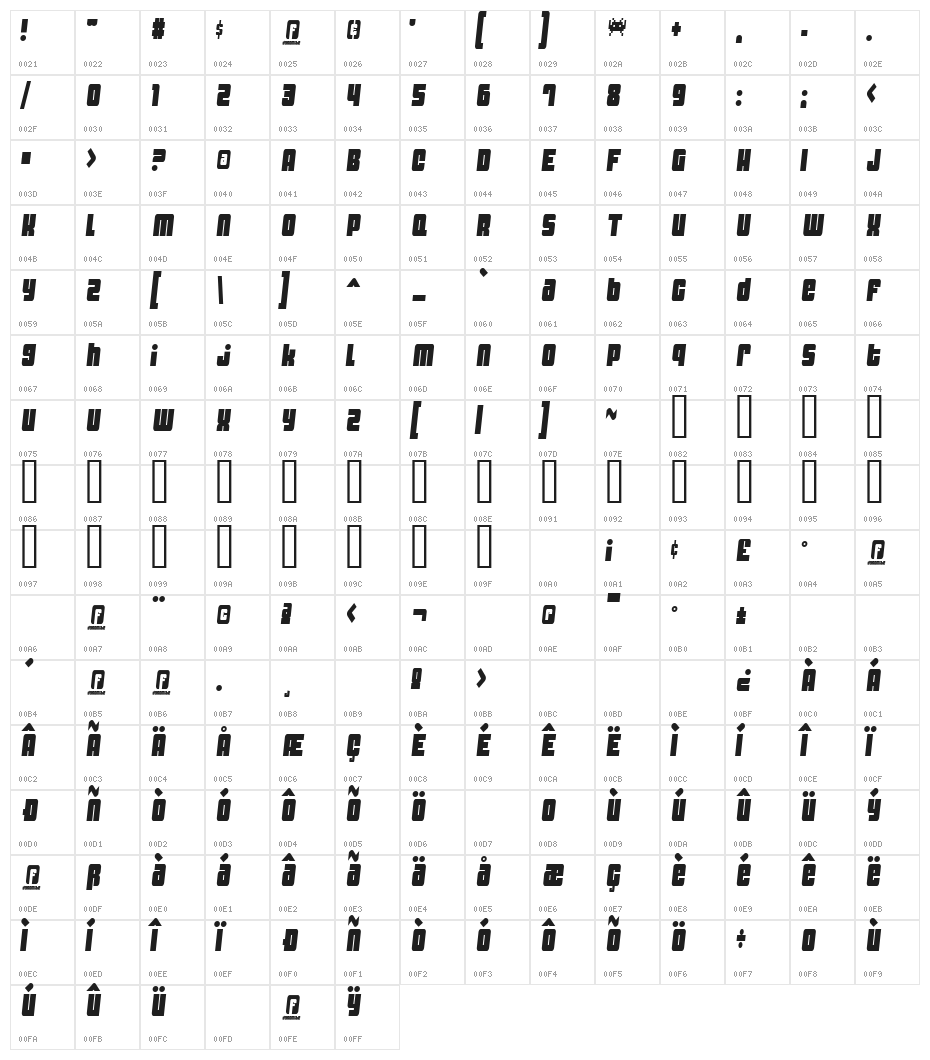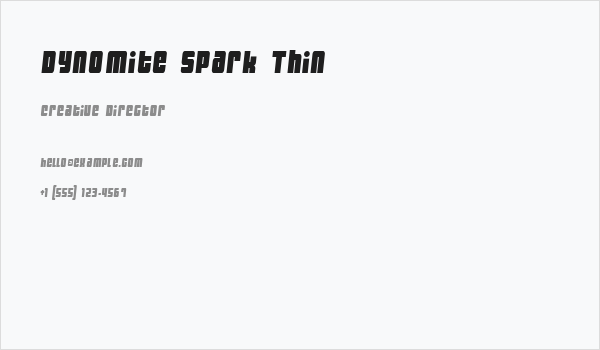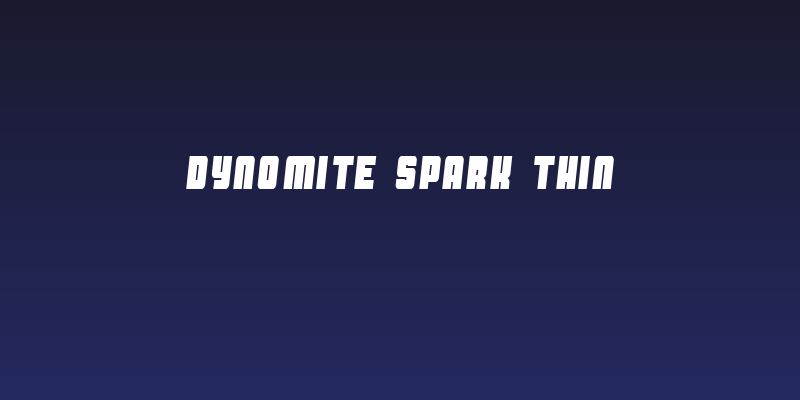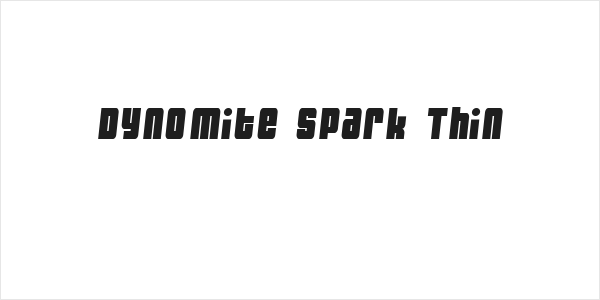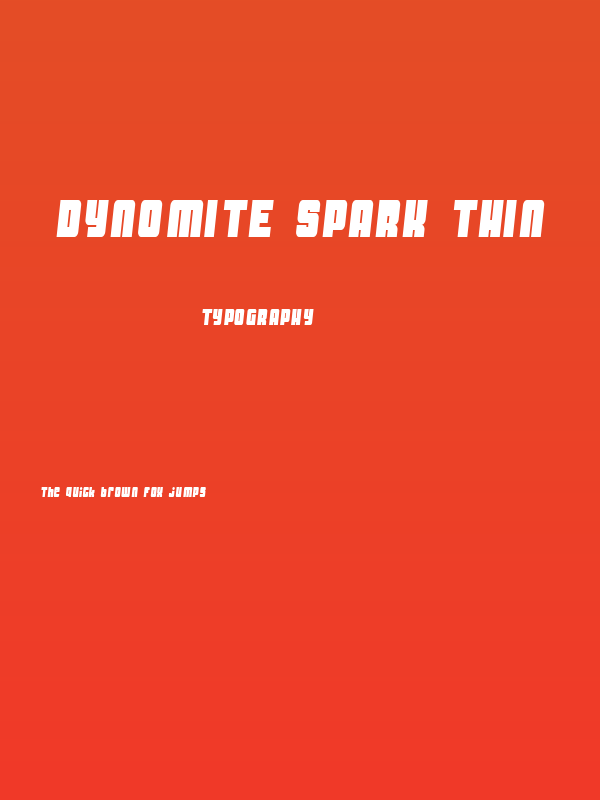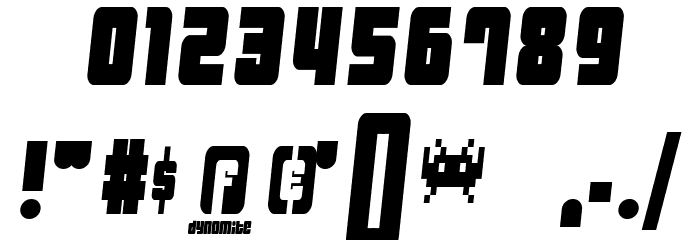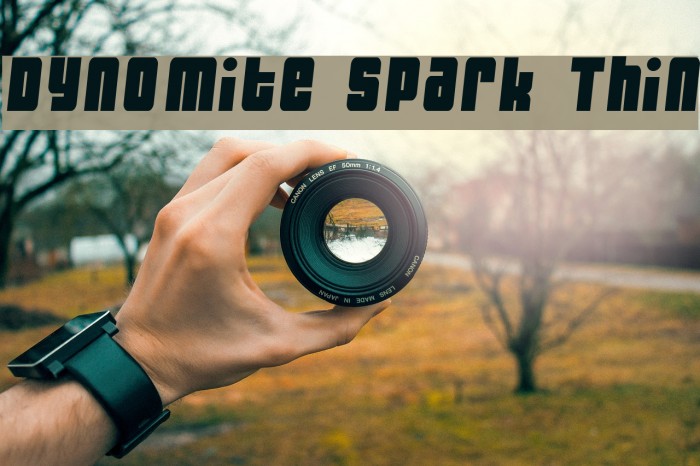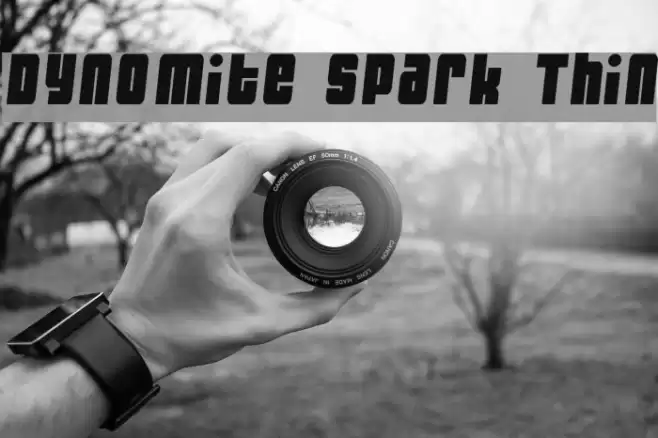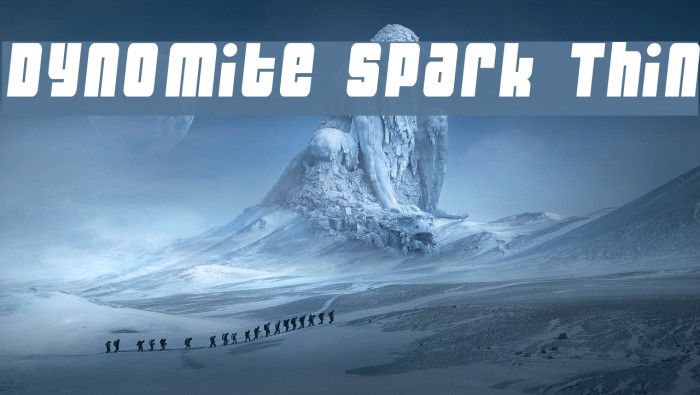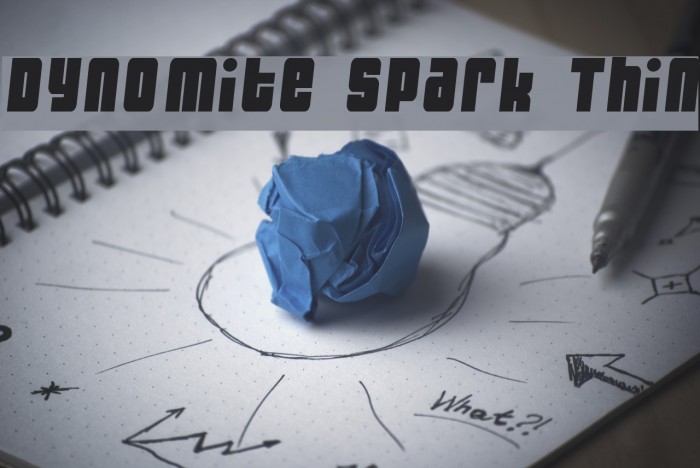
Dynomite Spark Thin Font
Dynomite Spark Thin Description
This font features a bold and dynamic style with a strong geometric influence. The characters are blocky and angular, giving a sense of power and modernity. The uppercase and lowercase letters maintain a consistent width, creating a uniform appearance. The numbers are similarly styled, ensuring a cohesive look across all characters. Special characters are designed with the same boldness, making them stand out. The overall design is impactful, making it suitable for attention-grabbing headlines or logos.
| Proposed Projects | Ideal for branding, sports team logos, posters, and any project needing a strong, modern typeface. |